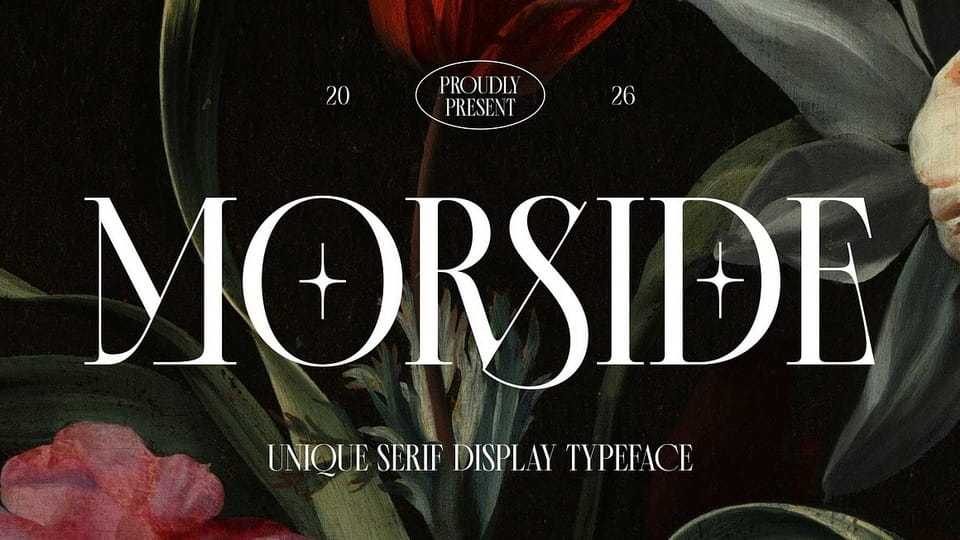
Download Morside font, a refined modern serif typeface that blends timeless elegance with contemporary sophistication. Designed with high contrast strokes, graceful curves, and distinctive details